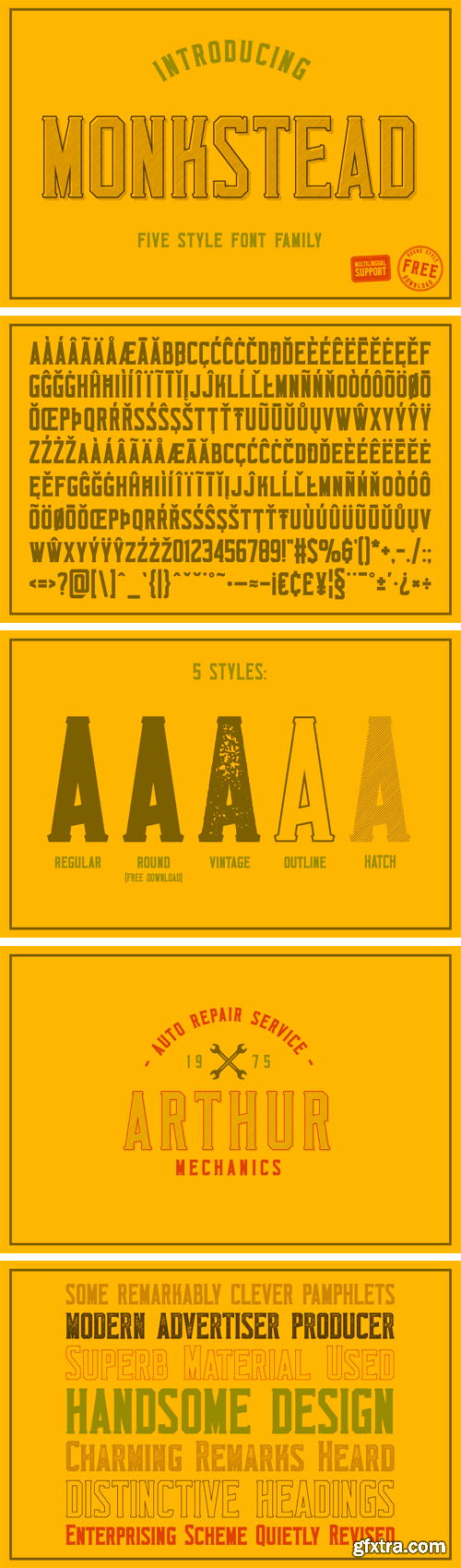
CM - Monkstead Font (+ FREE Round Style) 2742577
Monkstead is a serif block display typeface that is great for logos, titles and headlines. Carefully handcrafted and inspired by retro headlines, labels and posters. Monkstead Family comes with 5 styles: Regular, Round, Vintage, Outline and Hatch.